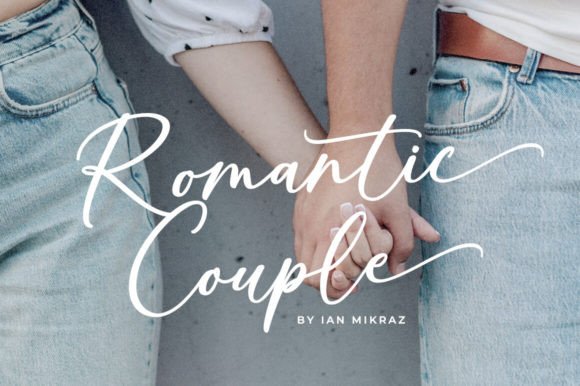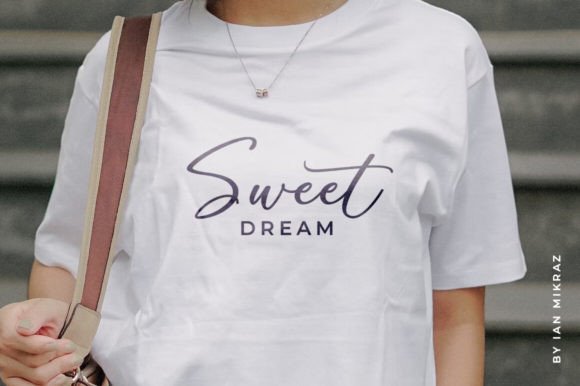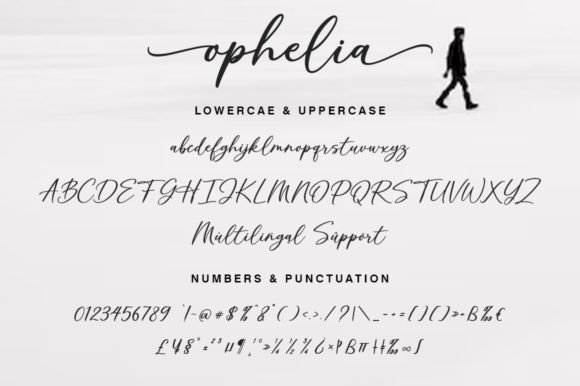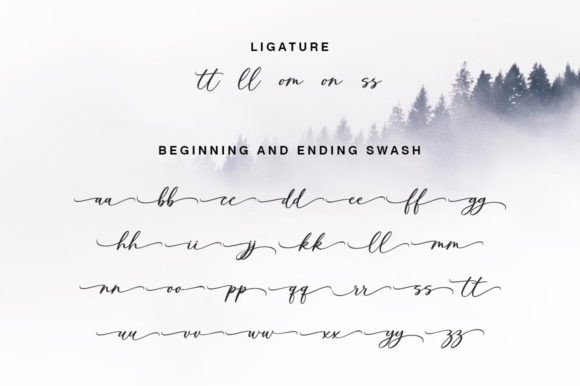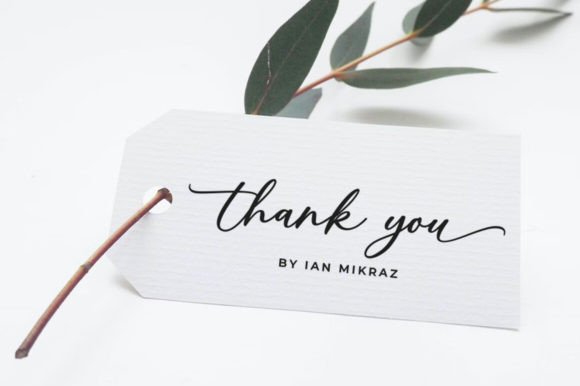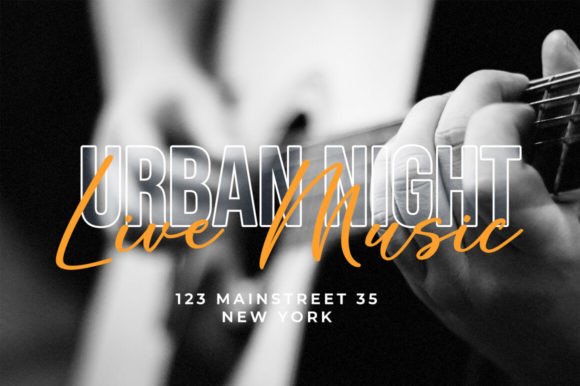
Introduction to Ophelia Font
Have you ever found yourself lost in the world of font options, searching for that perfect combination of elegance and modernity? It’s a moment we’ve all experienced, especially when working on a creative project that requires a unique touch. As designers, we’re constantly on the lookout for high-quality design resources that can elevate our work and make it stand out. That’s where the Ophelia Font comes in – a game-changing addition to your design arsenal that’s sure to take your creative projects to the next level.
With its effortless blend of handwritten charm and modern flair, the Ophelia Font is an absolute must-have for any designer. Whether you’re working on a free download project or creating branding materials, this versatile font is sure to add a touch of sophistication and approachability to your designs. And with its transparent background, you can be confident that your text will shine on any platform – from digital to print.
Key Features of Ophelia Font
- High-quality, elegant design perfect for creative projects and design resources.
- Features a unique, hand-drawn style with intricate details and flourishes.
- Supports a wide range of languages and characters, making it a versatile design resource.
Honest Review: Ophelia Font
I recently had the chance to work with the Ophelia Font, and I must say it’s been a game-changer for my creative projects. This high-quality font is perfect for anyone looking to add a touch of elegance to their designs.
- What works well: ✨ The Ophelia Font is incredibly versatile, making it easy to use in a variety of design scenarios. I love how it looks great with both bold and subtle colors.
- What works well: ✨ The font is also highly customizable, allowing me to easily adjust the size and spacing to fit my specific design needs.
However, there are a few limitations to consider. ⚠️ The font does not come with a transparent background, which can make it a bit tricky to use in certain design scenarios.
Overall, I’m really impressed with the Ophelia Font. It’s a fantastic design resource that has taken my creative projects to the next level. If you’re looking for a high-quality font to elevate your designs, I highly recommend giving it a try.
Ophelia Font
To get the most out of Ophelia Font, use it in combination with other design elements, such as images and graphics. You can also experiment with different font sizes and colors to create visually appealing designs.
Ophelia Font is perfect for various creative projects, including social media graphics, posters, flyers, presentations, and documents. Its high-quality design and transparent background make it a popular choice among designers.